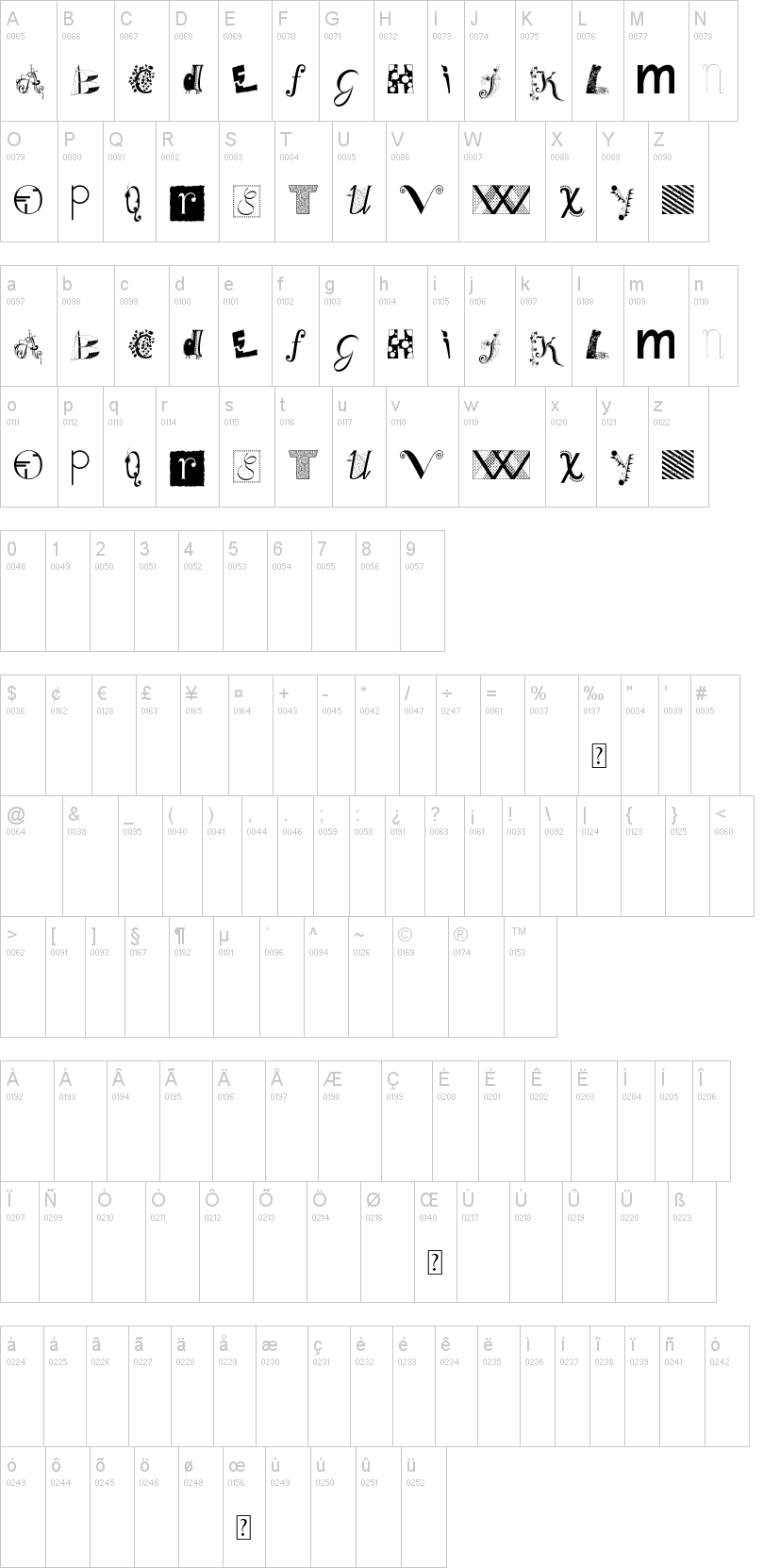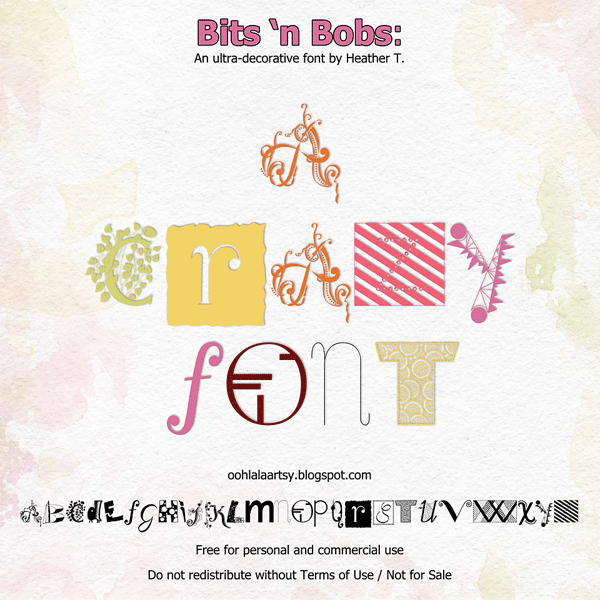
Шрифт BitsNBobs
This is actually a digitized (and cleaned up!) version of an alphabet I drew on random bits of painted papers I found on my art desk one night... =)